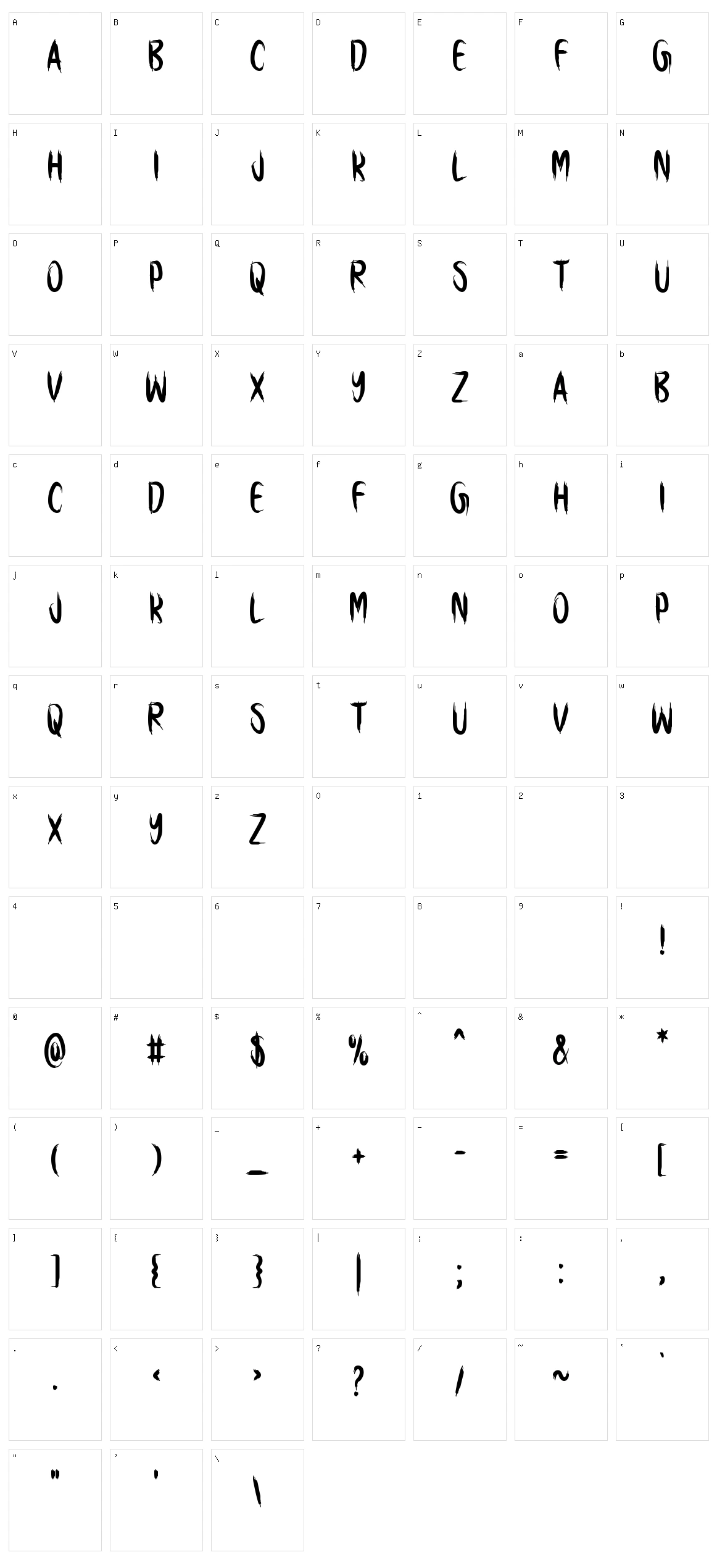
The free font Ghostly Whispers is carefully designed by Md Shohail Bhuian, showcasing a thoughtful balance of creativity and usability and falls under the Halloween font style. When you download the ZIP file, it contains only 104.79 KB of font files, making it lightweight and quick to download. Please review the license details below to understand permitted usage and distribution rights. If license information is not available, we recommend using this font for personal projects only or contacting the author directly for commercial usage permissions.